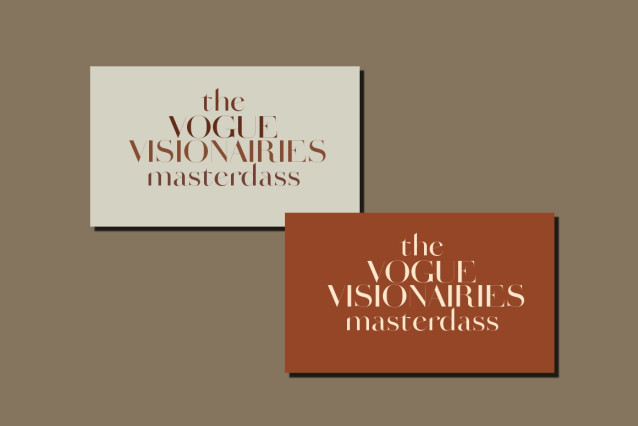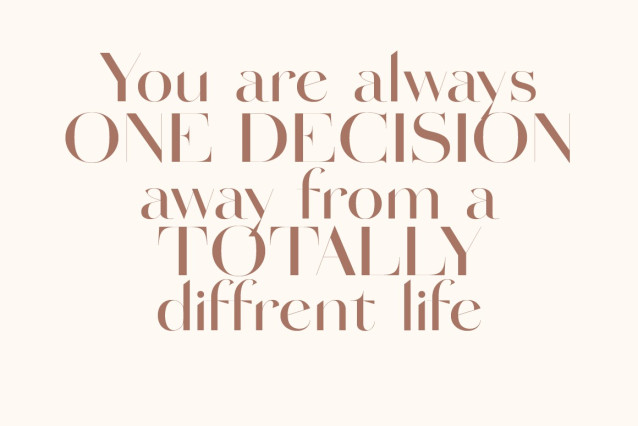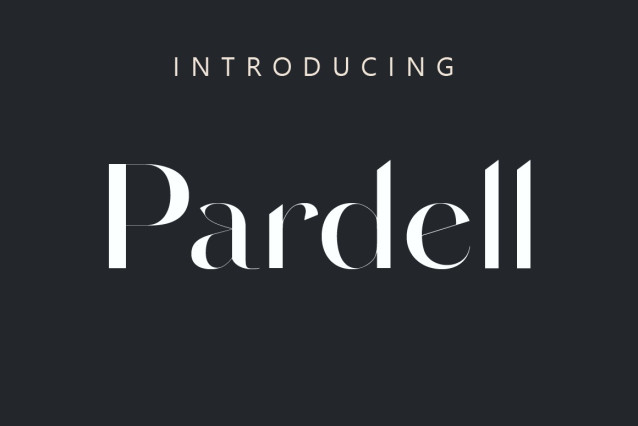
Pardell Font
Pardell Font a bold statement with our latest sans-serif font. With its clean lines and modern appeal, this font is sure to turn heads and leave a lasting impression. Perfect for headlines, logos, and any design that demands attention. It is both functional and stylish, making it a versatile choice for a wide range of design projects.